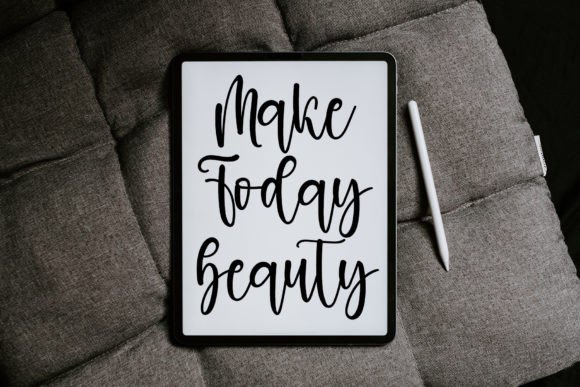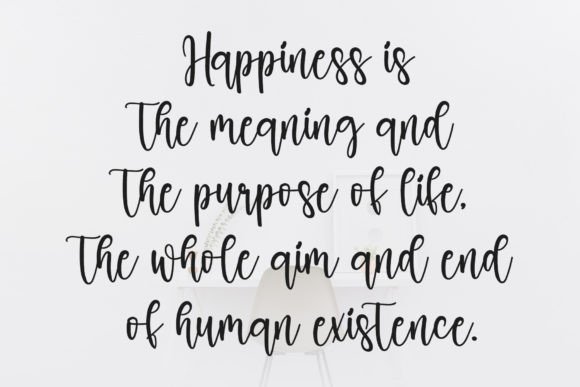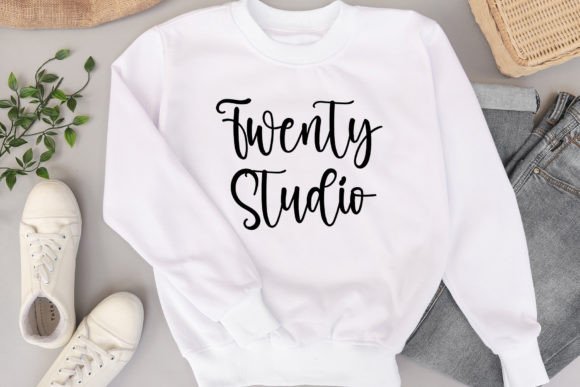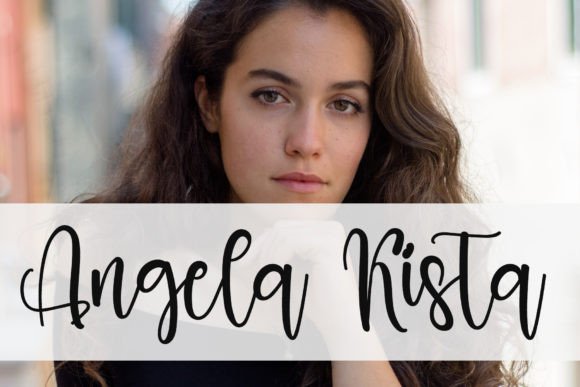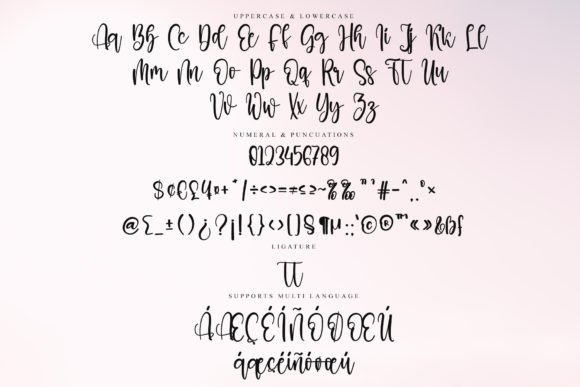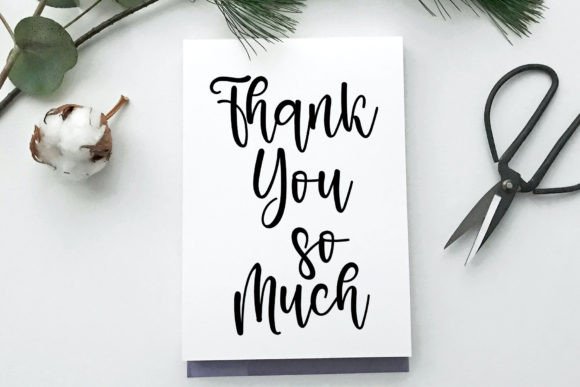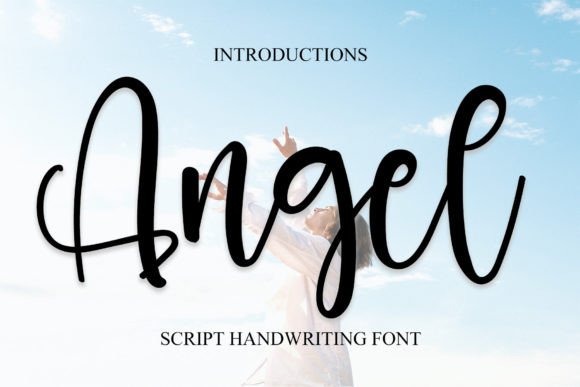
Introducing Angel Font: Elevate Your Designs with Elegance and Timeless Style
In the world of typography, few fonts capture the essence of delicacy and elegance as beautifully as the Angel Font. This exquisite, handwritten font is designed to add a touch of sophistication and charm to your projects, making it an indispensable asset for designers and crafters alike. With its incredibly distinct and timeless style, Angel Font is poised to become your go-to choice for creating spectacular designs that stand out from the crowd.
The Beauty of Angel Font
Angel Font boasts a delicate, elegant, and flowing script that exudes a sense of refinement and luxury. Its unique, handcrafted design ensures that every letter, glyph, and swash is meticulously crafted to contribute to a cohesive and visually stunning text. Whether you’re working on a branding project, crafting a beautiful wedding invitation, or designing an eye-catching poster, Angel Font provides the perfect blend of style and versatility.
Key Features of Angel Font
• Delicate and Elegant Design: Angel Font’s intricate details and flowing lines make it a masterpiece of typographic art, suitable for projects that demand a high level of sophistication.
• PUA Encoding: This font is PUA (Private Use Area) encoded, allowing easy access to all glyphs and swashes. This feature significantly enhances the font’s usability, enabling you to explore a wide range of design possibilities without needing additional software or complicated workarounds.
• Timeless Style: Unlike trends that fade with time, Angel Font’s classic appeal ensures that your designs remain relevant and captivating for years to come.
• Versatility: From digital applications to print materials, Angel Font adapts seamlessly across various mediums, making it an excellent choice for a broad spectrum of design projects.
Applications of Angel Font
The versatility of Angel Font makes it suitable for a myriad of applications. Here are some of the most popular uses:
• Branding and Logos: Create a lasting impression with a logo that embodies elegance and sophistication.
• Wedding and Event Stationery: Add a touch of romance and luxury to your wedding invitations, save-the-date cards, and other event materials.
• Packaging: Elevate your product packaging with a font that communicates premium quality and attention to detail.
• Digital Media: Enhance your social media graphics, blog headers, and website content with a distinctive font that sets you apart.
Tips for Maximizing the Potential of Angel Font
To make the most out of Angel Font, consider the following tips:
• Experiment with Sizes: Play around with different font sizes to create visual hierarchy and emphasize key messages.
• Pair it Wisely: Combine Angel Font with complementary fonts to add depth and contrast to your designs.
• Utilize Swashes and Glyphs: Take full advantage of the PUA encoding by incorporating swashes and glyphs to add personality and flair to your text.
Angel Font is more than just a typeface; it’s a design statement that speaks of elegance, sophistication, and timeless style. Its delicate and flowing script, coupled with PUA encoding for easy access to glyphs and swashes, makes it an invaluable resource for anyone looking to elevate their design work. Whether you’re a professional designer or a crafting enthusiast, Angel Font invites you to explore new dimensions of creativity and produce spectacular designs that leave a lasting impression.
Embrace the beauty and versatility of Angel Font, and let it guide you in creating works of art that resonate with elegance and charm. Fall in love with its distinct style, and make it your partner in crafting designs that are not only visually stunning but also timeless.